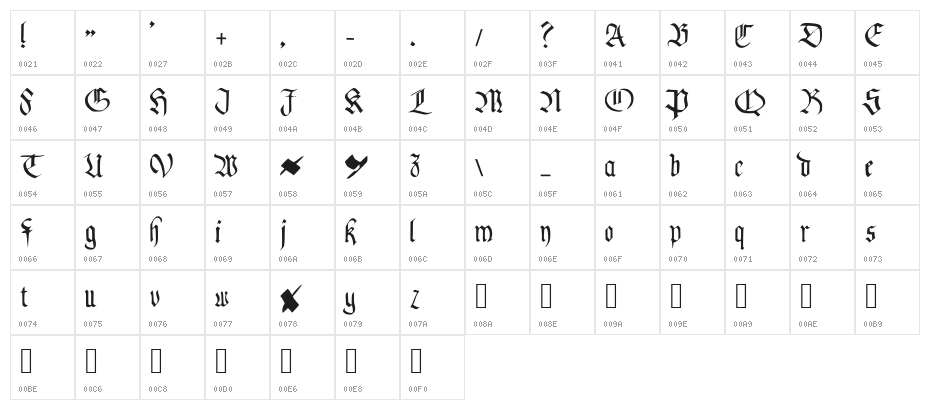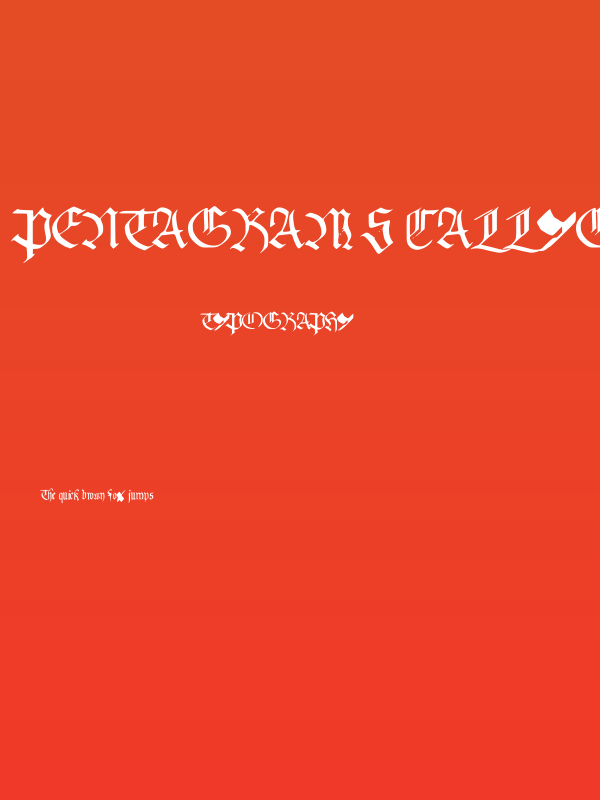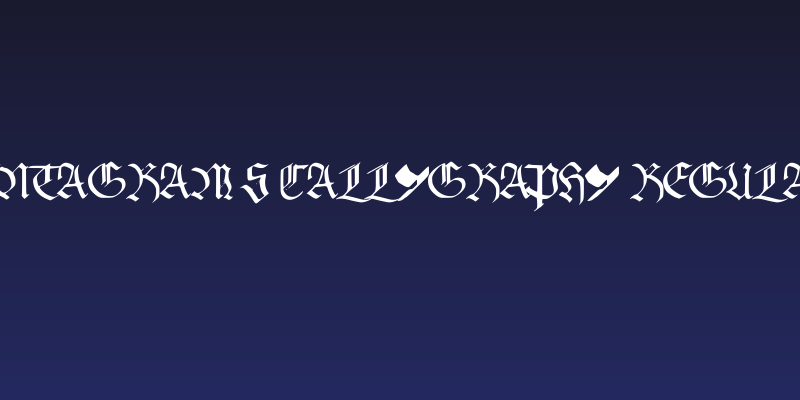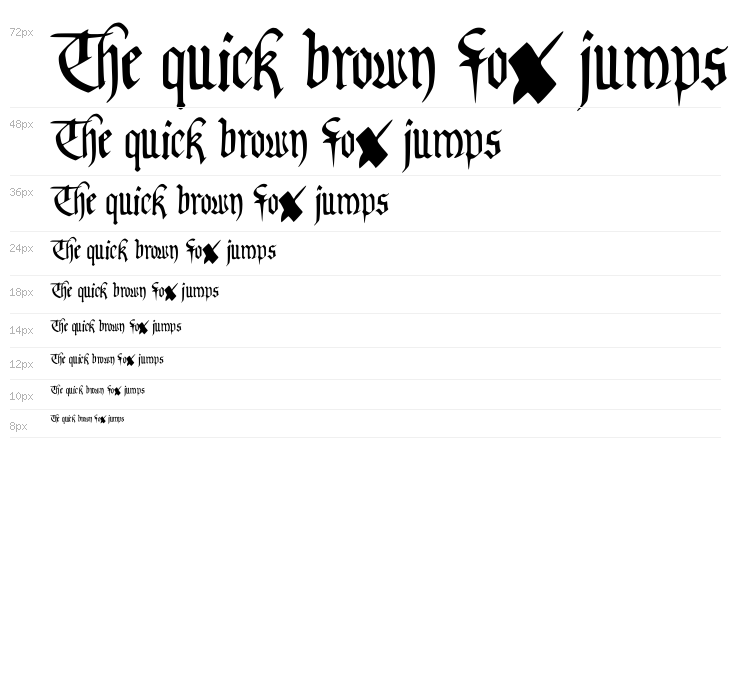
PentaGram s Callygraphy Regular Font
PentaGram s Callygraphy Regular Description
This font features a traditional blackletter style, characterized by its intricate and ornate letterforms. The uppercase letters exhibit sharp, angular lines with decorative flourishes, while the lowercase letters maintain a consistent style with slightly more rounded edges. The overall appearance is bold and dramatic, making it suitable for projects that require a historical or gothic aesthetic. The numbers and special characters are designed to match the elaborate style of the alphabet, ensuring a cohesive look across all text elements. This font is ideal for creating a strong visual impact in titles, logos, or themed designs.
| Overall Style | Gothic, Traditional |
| Use Case | Headlines, Logos, Themed Designs |
| Proposed Projects | Ideal for historical-themed designs, gothic posters, book covers, or branding that requires a dramatic and traditional look. |